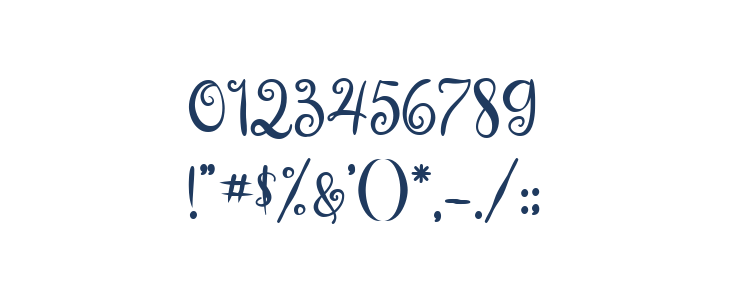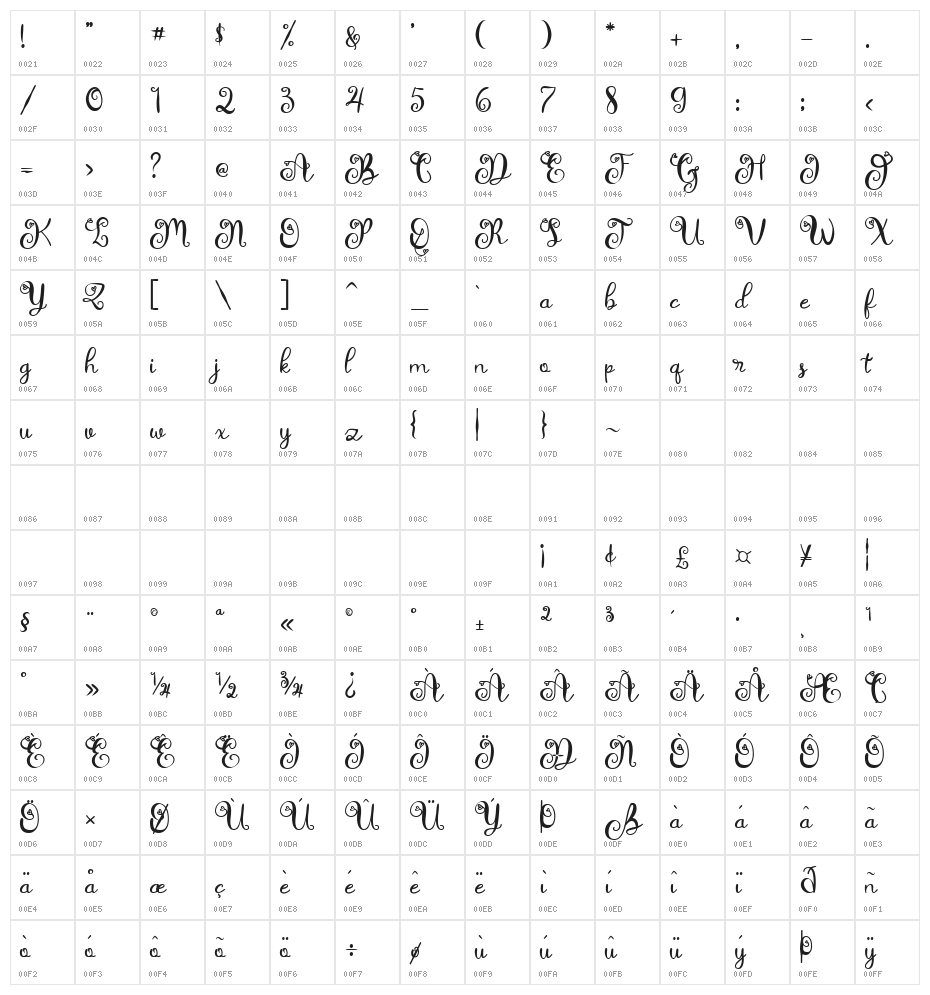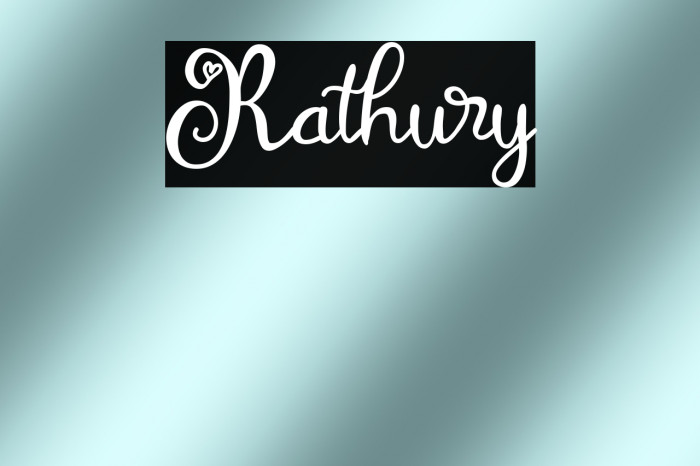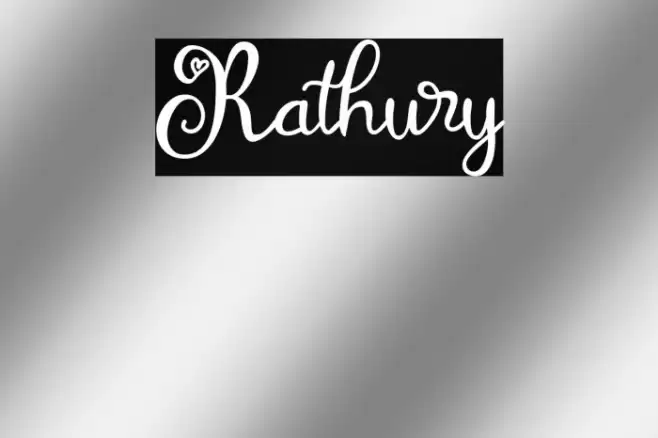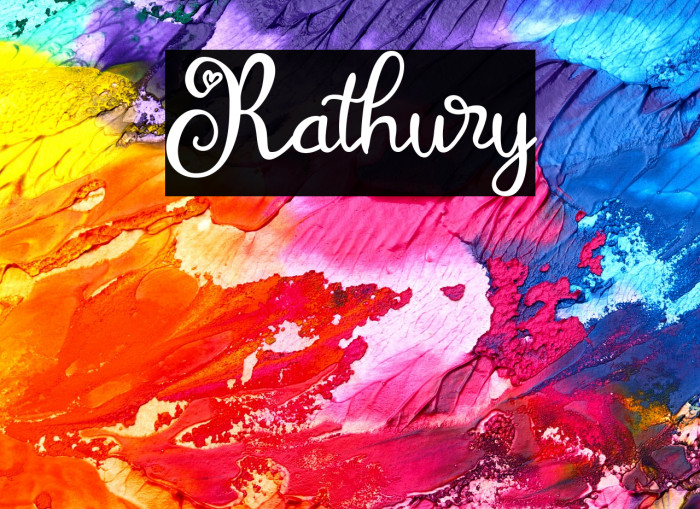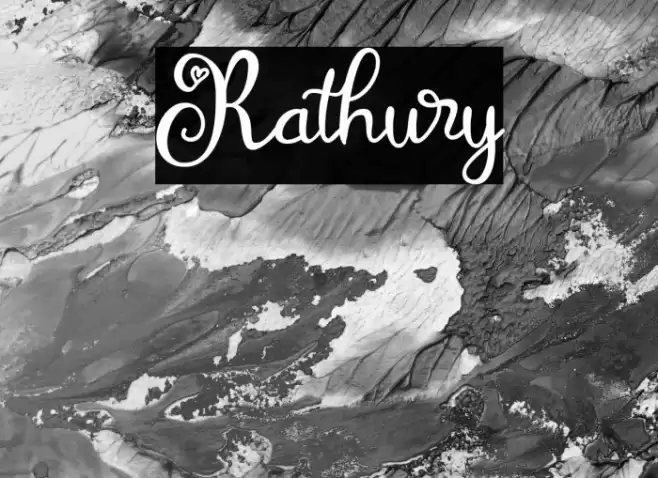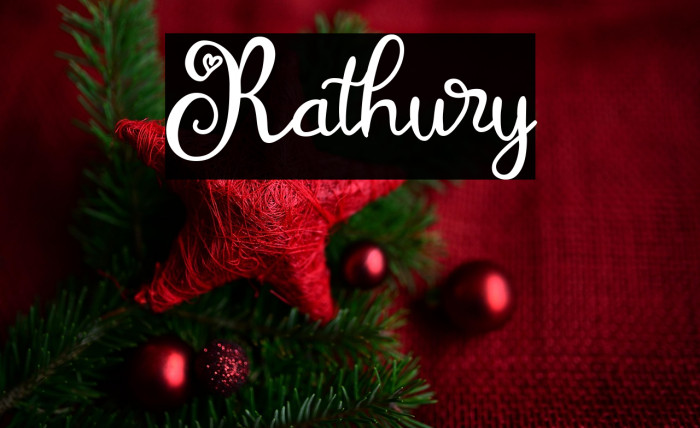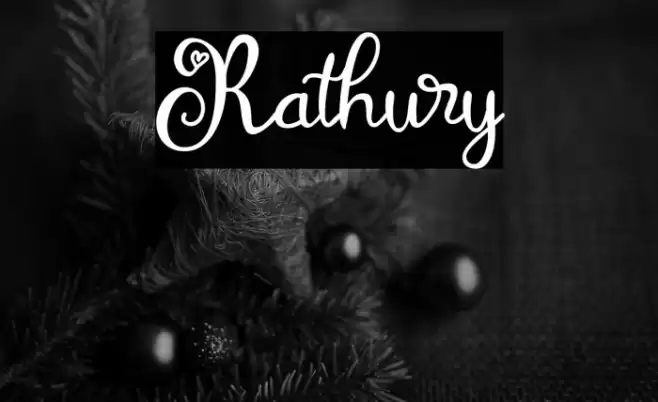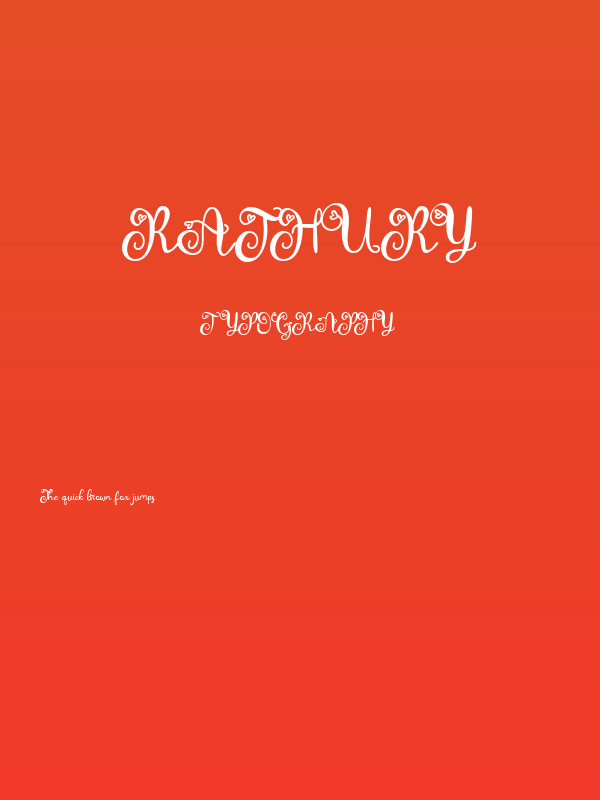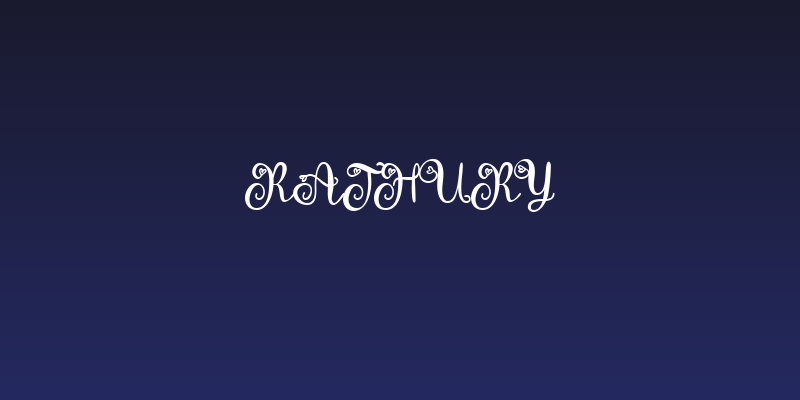
Rathury Font
Rathury Description
This font features an elegant and whimsical design, characterized by its decorative and playful elements. The uppercase letters are adorned with intricate swirls and loops, giving them a unique and artistic flair. The lowercase letters maintain a more fluid and cursive style, providing a nice contrast to the ornate uppercase. The numerals are consistent with the decorative theme, incorporating similar swirls and embellishments. Special characters are creatively designed, adding to the overall charm of the font. This font is perfect for projects that require a touch of elegance and creativity, such as invitations, greeting cards, and artistic branding.